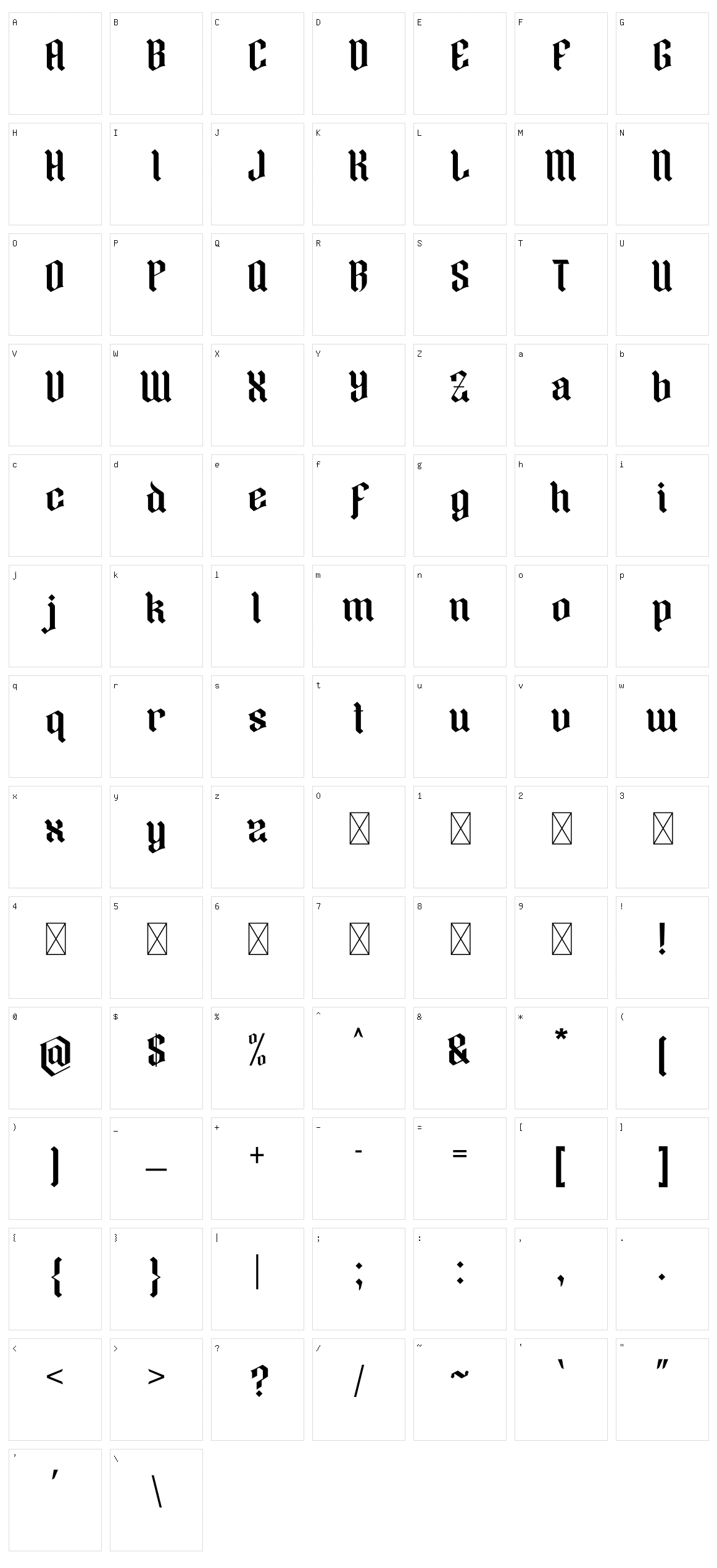
Darksoul
Description: The free font Darksoul is carefully designed by Ronny Studio, showcasing a thoughtful balance of creativity and usability and belongs to the Gothic font family. When you download the ZIP file, it contains only 3291.16 KB of font files, making it lightweight and quick to download. Please review the license details below to understand permitted usage and distribution rights. If license information is not available, we recommend using this font for personal projects only or contacting the author directly for commercial usage permissions.